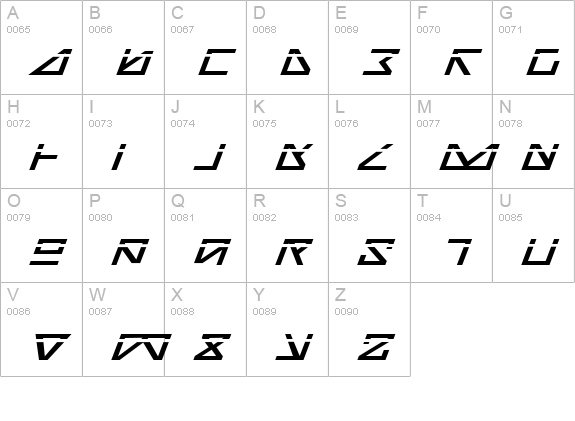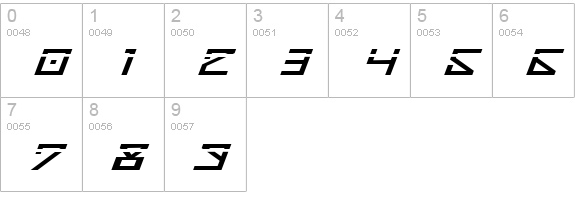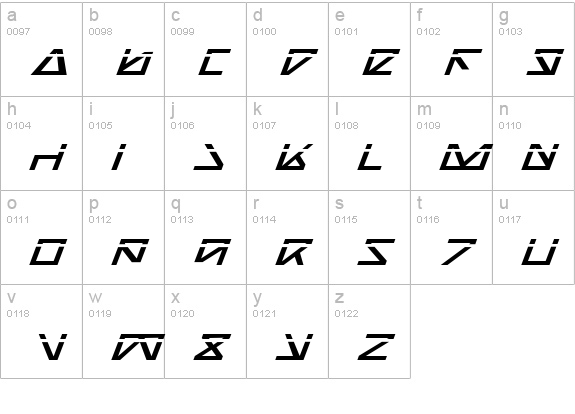
Nick Turbo Expanded ItLas is a distinctive, extended-width variant in the Nick typeface family \xE2\x80\x94 well suited to design and typography projects.
Nick Turbo Expanded ItLas is a sleek and modern display font that exudes a sense of speed and dynamism. Its extended and bold letterforms give a powerful and energetic look, making it perfect for headlines, posters, and other design projects that require a strong visual impact. The font features sharp edges and a futuristic aesthetic, adding a touch of sophistication to any design. Best of all, Nick Turbo Expanded ItLas is available for free download at FontsMarket.com, making it accessible to designers and creatives looking to add a touch of style and flair to their projects without breaking the bank. Whether you're working on a branding project, advertising campaign, or simply want to make a statement with your typography, Nick Turbo Expanded ItLas is the perfect choice for adding a bold and contemporary touch to your designs. Download it today and unleash the power of this striking font in your next project!